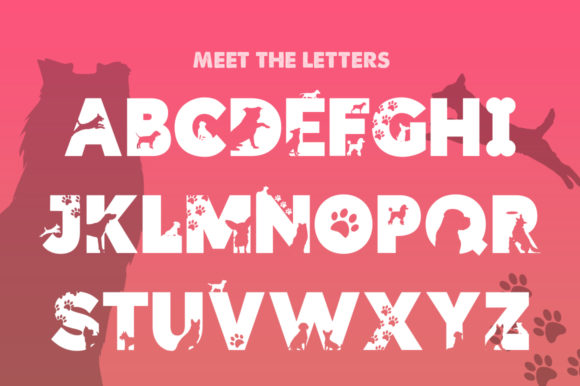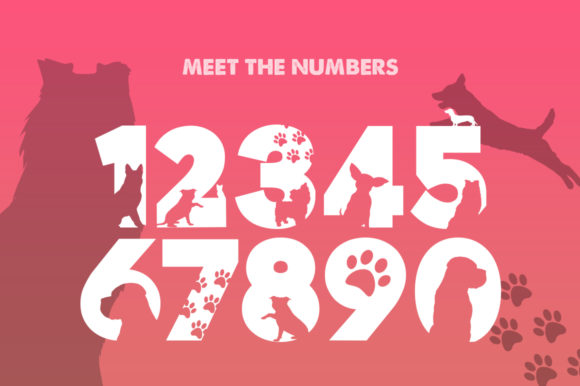
Freebie Wednesday: Doggy Silhouette Font
Doggies Silhouette is an amazing display font. It is the perfect choice for any pet related project! Available for free download on the Creative Fabrica site.